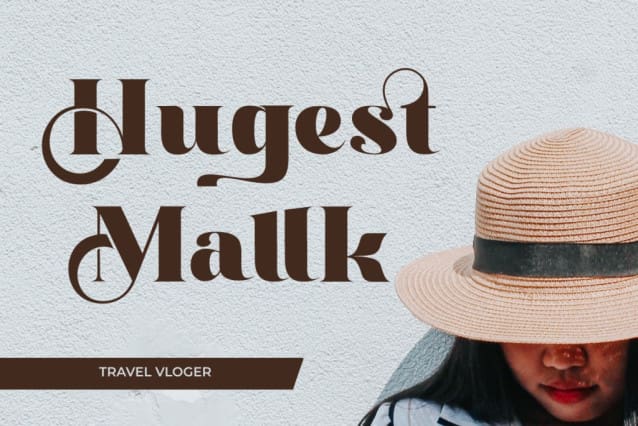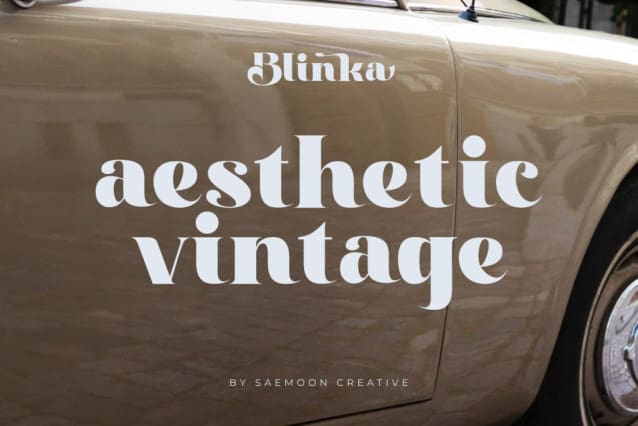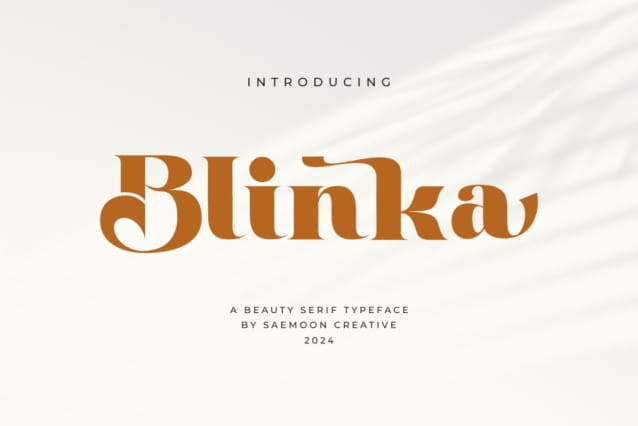
Blinka Font
Blinka Font is a charming and elegant serif typeface designed to add a touch of sophistication to various design projects. With its beautiful characteristics, Blinka conveys a classic yet contemporary impression.
Its smooth serif lines and balanced proportions exude luxury and professionalism. Each letter is meticulously crafted, showcasing delicate details and proportional shapes.